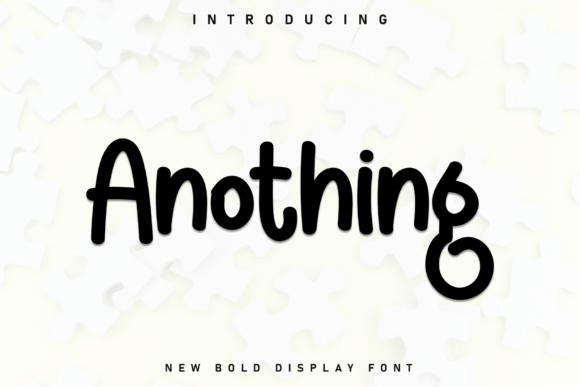
The Ultimate Guide to Anothing Font: Elevate Your Design with a Relaxed yet Luxurious Touch
I’ll never forget the time I was working on a branding project for a fashion client, and I was struggling to find the perfect font. The client wanted something that exuded luxury and elegance, but still had a casual, approachable vibe. I scoured the internet, tried out countless fonts, and even considered creating a custom font from scratch. That’s when I stumbled upon Anothing Font, a handwritten gem that looked like it was drawn with a marker. It was love at first sight! 💕
An Honest Review of Anothing Font
So, what makes Anothing Font so special? Let’s dive into the good stuff! 😊
- ✨ Relaxed and sporty feel: Anothing Font has a unique, laid-back vibe that’s perfect for designs that need to feel casual yet sophisticated.
- ✅ Versatile: This font is incredibly versatile and can be used for a wide range of projects, from branding and logos to wedding supplies, greeting cards, and marketing promotions.
- 💫 Luxurious and elegant: Despite its casual feel, Anothing Font has an undeniable air of luxury and elegance that’s sure to elevate your designs.
Of course, no font is perfect, and Anothing Font has a few quirks to be aware of:
- 🤔 Limited character set: While Anothing Font has a wide range of characters, it’s not a full-featured font with every possible glyph. Be sure to check the character set before committing to a project.
- ⚠️ Not suitable for body text: Due to its handwritten nature, Anothing Font is best used for headlines, titles, and short paragraphs. It may not be the best choice for longer blocks of text.
A Practical Guide to Using Anothing Font
The Story Behind Anothing Font
Anothing Font was created by a talented designer who wanted to craft a font that felt both relaxed and luxurious. Inspired by the imperfections of handwritten text, the designer carefully crafted each character to create a unique, marker-drawn feel. The result is a font that’s perfect for designs that need to feel casual yet sophisticated.
| Font Name | Anothing Font |
| Author | Berkah Shop |
| Q: What type of projects is Anothing Font best suited for? | A: Anothing Font is perfect for branding, logos, wedding supplies, greeting cards, fashion, lookbooks, marketing promotions, and more. |
| Q: Can I use Anothing Font for body text? | A: While Anothing Font is beautiful, it’s best used for headlines, titles, and short paragraphs. It may not be the best choice for longer blocks of text. |
| Q: Is Anothing Font available in different weights or styles? | A: Currently, Anothing Font is available in a single weight, but it’s perfect for designs that need a relaxed yet luxurious feel. |